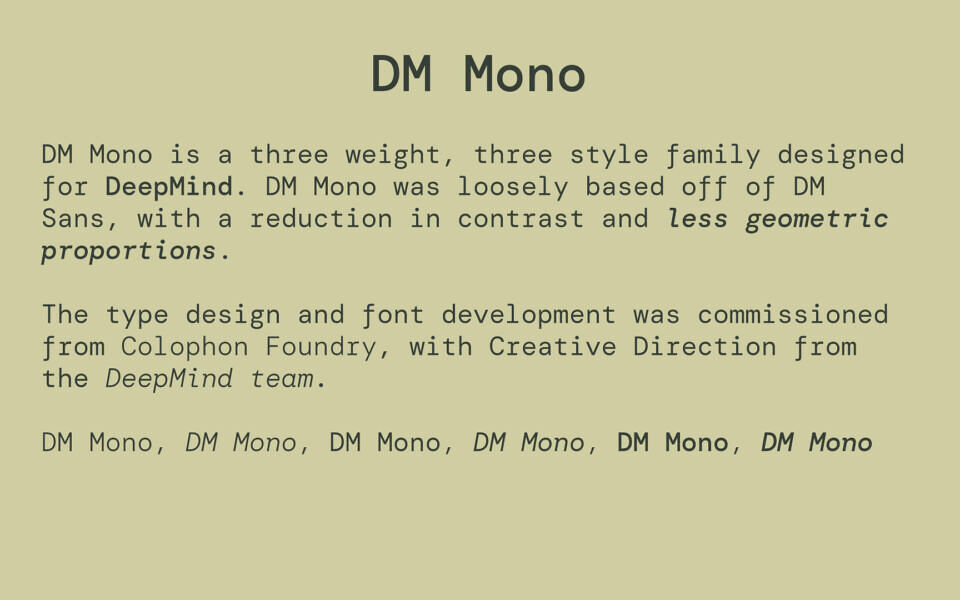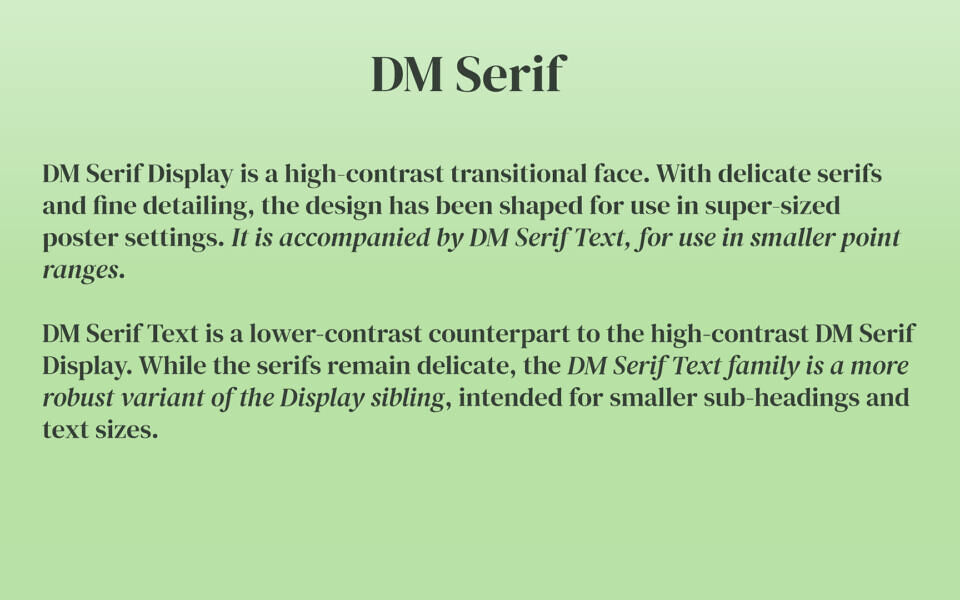
DM Font
DM is a font family developed by Colophon Foundry and is completely free under the OFL license. The family has four distinct styles: DM Sans, DM Serif Display, DM Serif Text, and DM Mono, which also come in different weights and their respective italic versions. Each style is described individually below.
• DM Sans: Low-contrast geometric sans serif design, intended for use at smaller text sizes. Supports a Latin Extended glyph set, enabling typesetting for English and other Western European languages. In May 2023 DM Sans is updated, expanding the coverage of the weight range to Thin & ExtraBlack (100–1000 weight range) along with a new optical size axis.
• DM Serif Display: This is a high-contrast transitional face. With delicate serifs and fine detailing, the design has been shaped for use in super-sized poster settings. It is accompanied by DM Serif Text, for use in smaller point ranges.
• DM Serif Text: Lower-contrast counterpart to the high-contrast DM Serif Display. While the serifs remain delicate, the DM Serif Text family is a more robust variant of the Display sibling, intended for smaller sub-headings and text sizes.
• DM Mono: This is a three weight, three style family designed for DeepMind. DM Mono was loosely based off of DM Sans, with a reduction in contrast and less geometric proportions.
• Bonus Font – Space Mono: An original fixed-width type family designed by Colophon Foundry for Google Design.